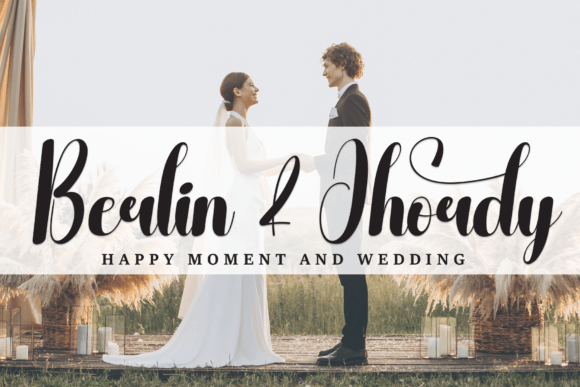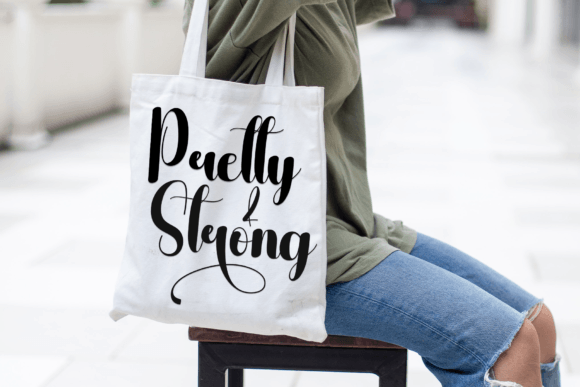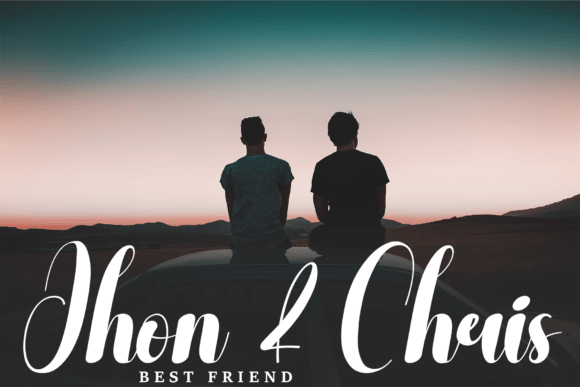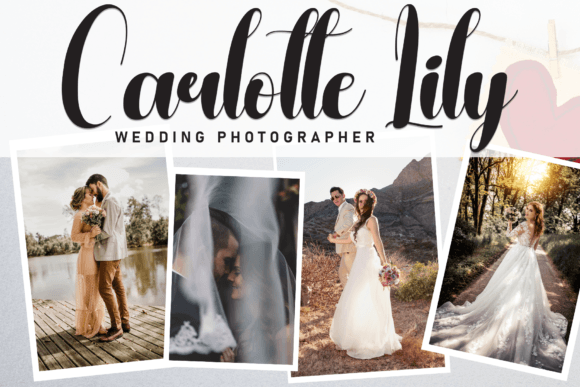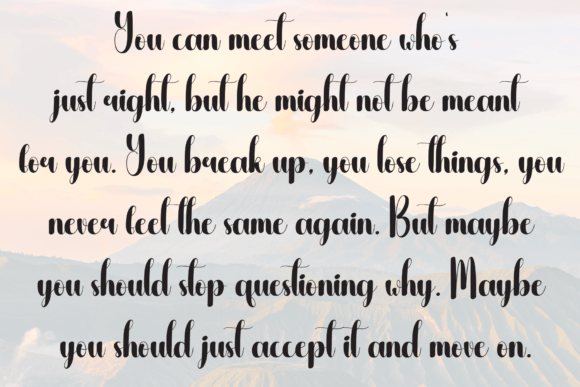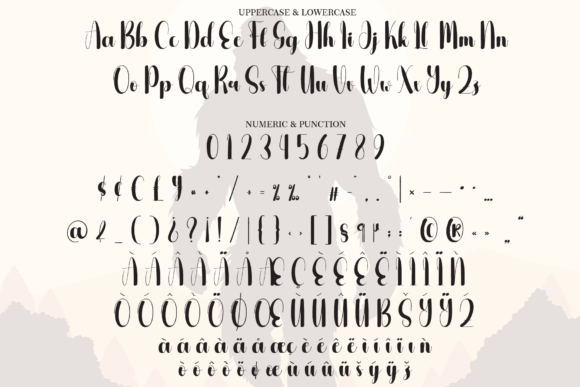
Introducing Gigantic Font: The Sweet and Friendly Handwritten Font for Your Creative Projects
Are you looking for a font that can add a personal touch to your designs? Do you want to create beautiful wedding invitations, greeting cards, or other craft projects that stand out from the crowd? Look no further than Gigantic Font, a sweet and friendly handwritten font that’s perfect for adding a lovely touch to your creations.
What Makes Gigantic Font Special?
Gigantic Font is a fresh and casual handwritten font that’s designed to bring a sense of warmth and personality to your designs. Its unique and charming lettering style makes it ideal for a wide range of creative projects, from wedding invitations and cards to posters, flyers, and more.
One of the key features that sets Gigantic Font apart is its friendly and approachable feel. The font’s rounded edges and smooth lines give it a soft and gentle appearance that’s sure to delight your audience. Whether you’re creating a formal or informal design, Gigantic Font is the perfect choice for adding a touch of elegance and sophistication.
Uses for Gigantic Font
Gigantic Font is an incredibly versatile font that can be used for a wide range of creative projects. Here are just a few ideas to get you started:
- Wedding Invitations: Create beautiful and unique wedding invitations that set the tone for your special day. Gigantic Font’s elegant and sophisticated style makes it perfect for formal and informal wedding invitations alike.
- Greeting Cards: Add a personal touch to your greeting cards with Gigantic Font’s charming and friendly lettering style. Whether you’re creating birthday cards, thank-you cards, or holiday cards, this font is sure to make your designs stand out.
- Posters and Flyers: Use Gigantic Font to create eye-catching posters and flyers that grab attention and communicate your message. Its bold and playful style makes it perfect for advertising, promotions, and other marketing materials.
- Craft Projects: Add a touch of personality to your craft projects with Gigantic Font. Whether you’re creating handmade cards, scrapbooking pages, or other paper crafts, this font is sure to inspire your creativity.
Why Designers and Crafters Love Gigantic Font
Gigantic Font has quickly become a favorite among designers and crafters, and for good reason. Here are just a few reasons why:
- Easy to Read: Gigantic Font is incredibly easy to read, even at small sizes. This makes it perfect for designs where legibility is key, such as wedding invitations and greeting cards.
- Highly Versatile: Gigantic Font can be used for a wide range of creative projects, from formal and informal designs to digital and print materials.
- Unique and Charming: Gigantic Font’s unique and charming lettering style sets it apart from other fonts. Its friendly and approachable feel makes it perfect for designs where you want to connect with your audience.
Tips for Using Gigantic Font
Here are a few tips for getting the most out of Gigantic Font:
- Pair it with Other Fonts: Gigantic Font pairs perfectly with other fonts, such as sans-serif fonts and script fonts. Experiment with different font combinations to find the perfect look for your design.
- Use it for Headings and Titles: Gigantic Font is perfect for headings and titles, where its bold and playful style can really make an impact.
- Experiment with Colors: Gigantic Font looks great in a wide range of colors, from bright and bold to soft and pastel. Experiment with different colors to find the perfect look for your design.
Gigantic Font is a sweet and friendly handwritten font that’s perfect for adding a personal touch to your designs. Its unique and charming lettering style makes it ideal for a wide range of creative projects, from wedding invitations and cards to posters, flyers, and more. Whether you’re a designer or crafter, Gigantic Font is sure to inspire your creativity and help you create beautiful and unique designs that stand out from the crowd.